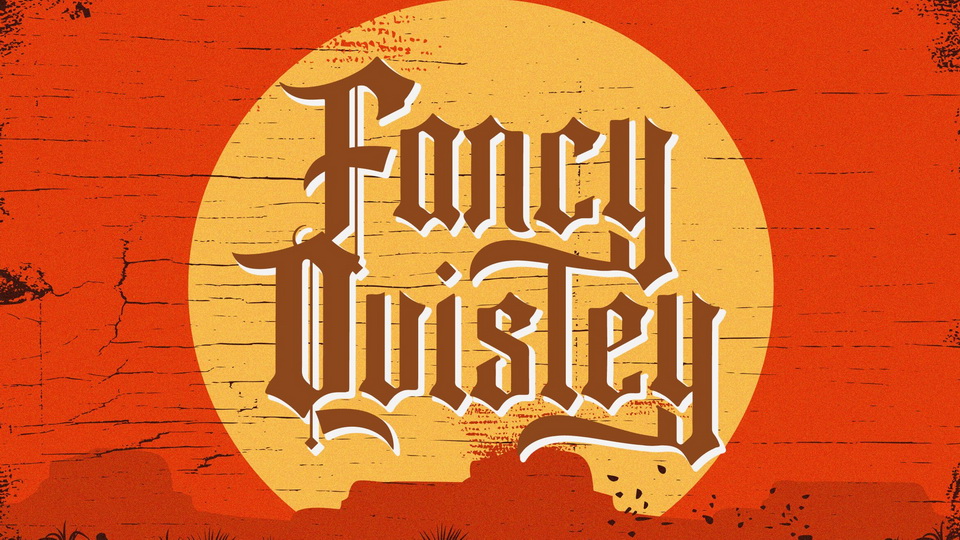
Download Fancy Quisley font, an incredibly authentic and daring blackletter typeface. Add Fancy Quisley to your favorite creative ideas and notice how it makes them stand out.